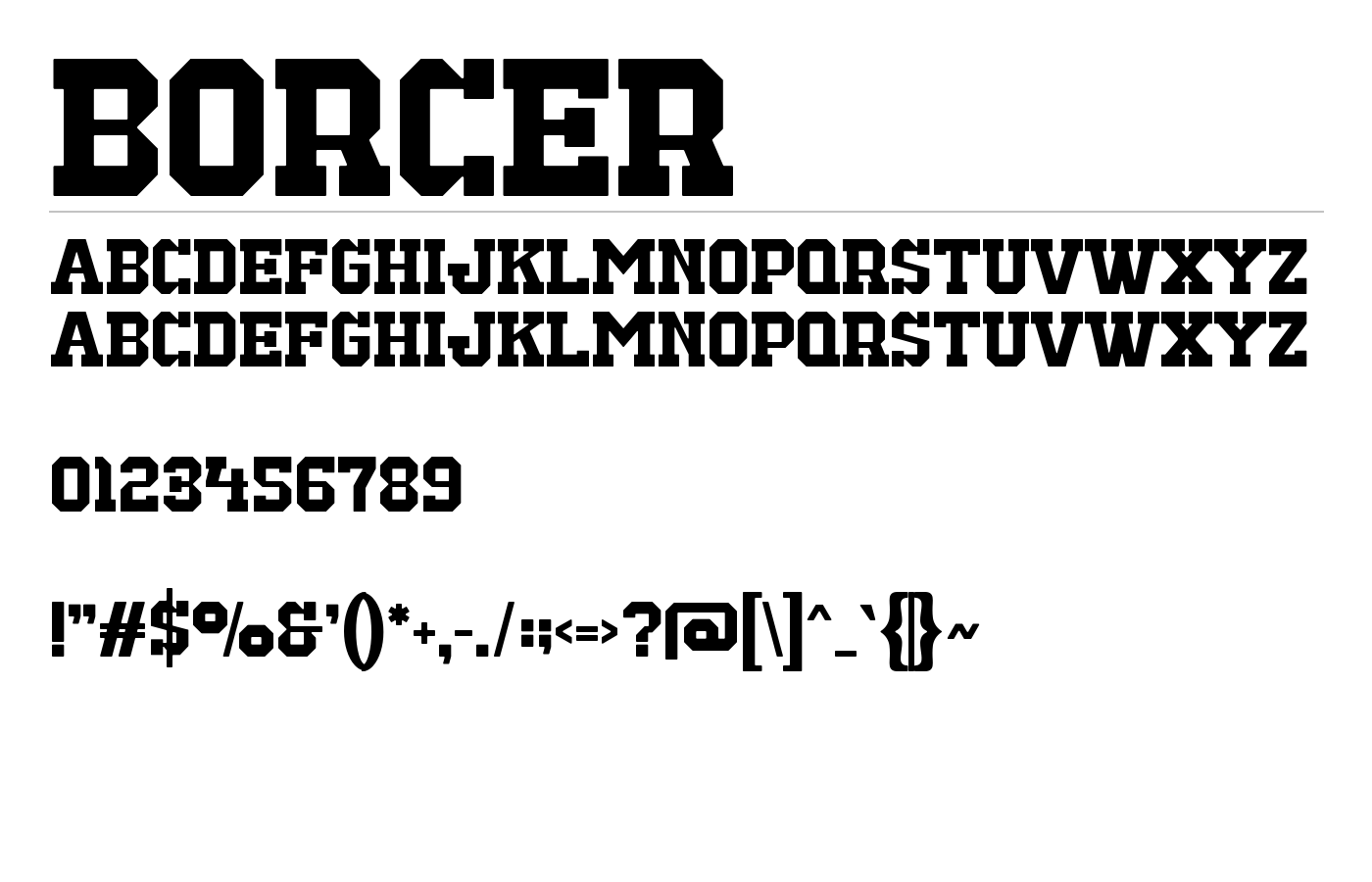
Borcer is a bold, slab serif font with a strong, blocky presence and a rugged, western-inspired style. Its heavy weight and sturdy geometric shapes make it ideal for impactful headlines, logos, and vintage or outdoor-themed designs. This font’s robust character and sharp edges convey a sense of strength and tradition, perfect for branding that wants to stand out with confidence.
Borcer Font
About Borcer Font
| Font family | Borcer Font |
| Designer | Maikohatta |